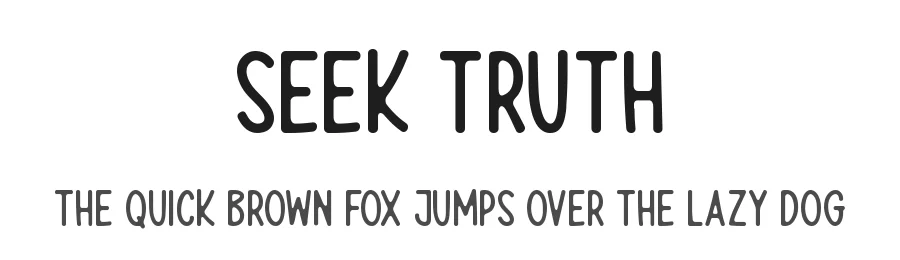
About Suru Font
Suru is a decorative font designed by Mahdi Salah. It includes 236 glyphs, a regular weight, TTF (TrueType) format, and 209 languages. Suru is free to download; check the license details on this page before commercial use. Decorative fonts like Suru work best for logos, posters, packaging, and standout headlines.
Suru Font is a decorative font that shines as a display or heading face. Pair it with a clean sans-serif or serif font for body text β the contrast creates a clear hierarchy while the two styles stay balanced and easy to read.
Suru Font
by Mahdi Salah